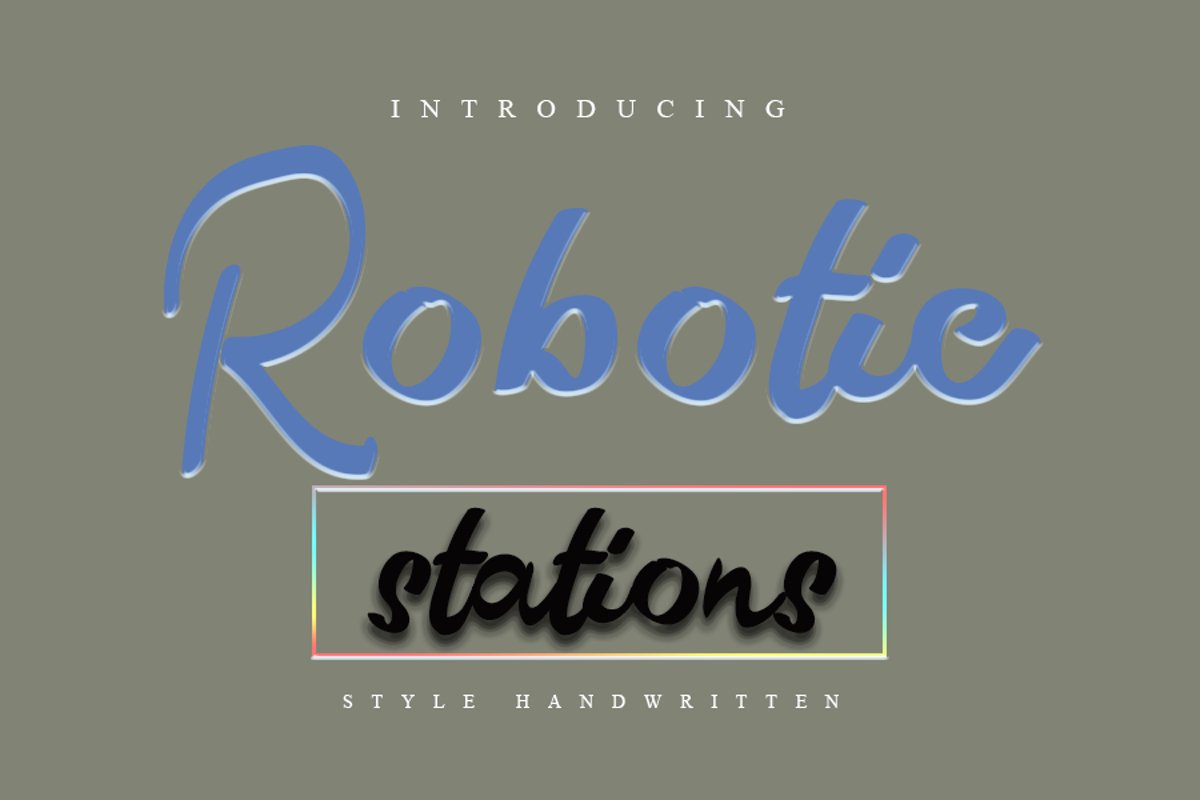
Robotic Station
Robotic Stations
Robotic Station feels equally charming and elegant. Whether you’re looking for fonts for Instagram or calligraphy scripts for DIY projects, this font will turn any creative idea into a true piece of art!
+More than 100+ Glyphs